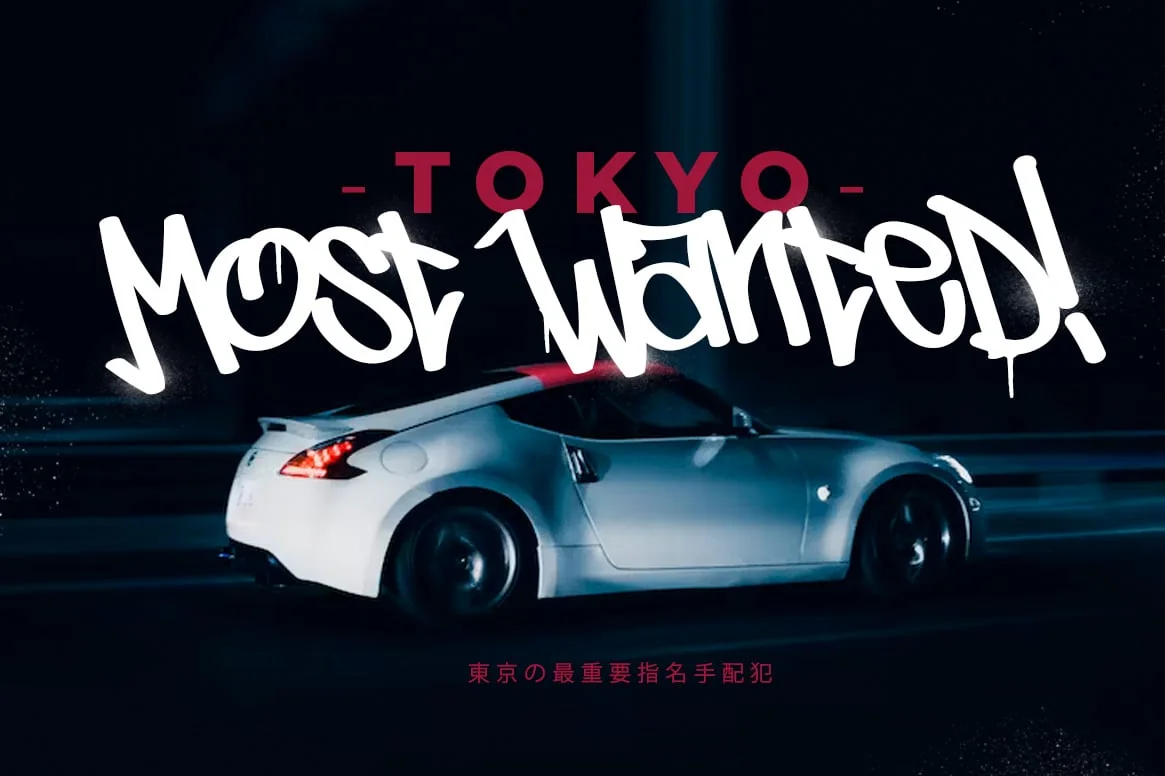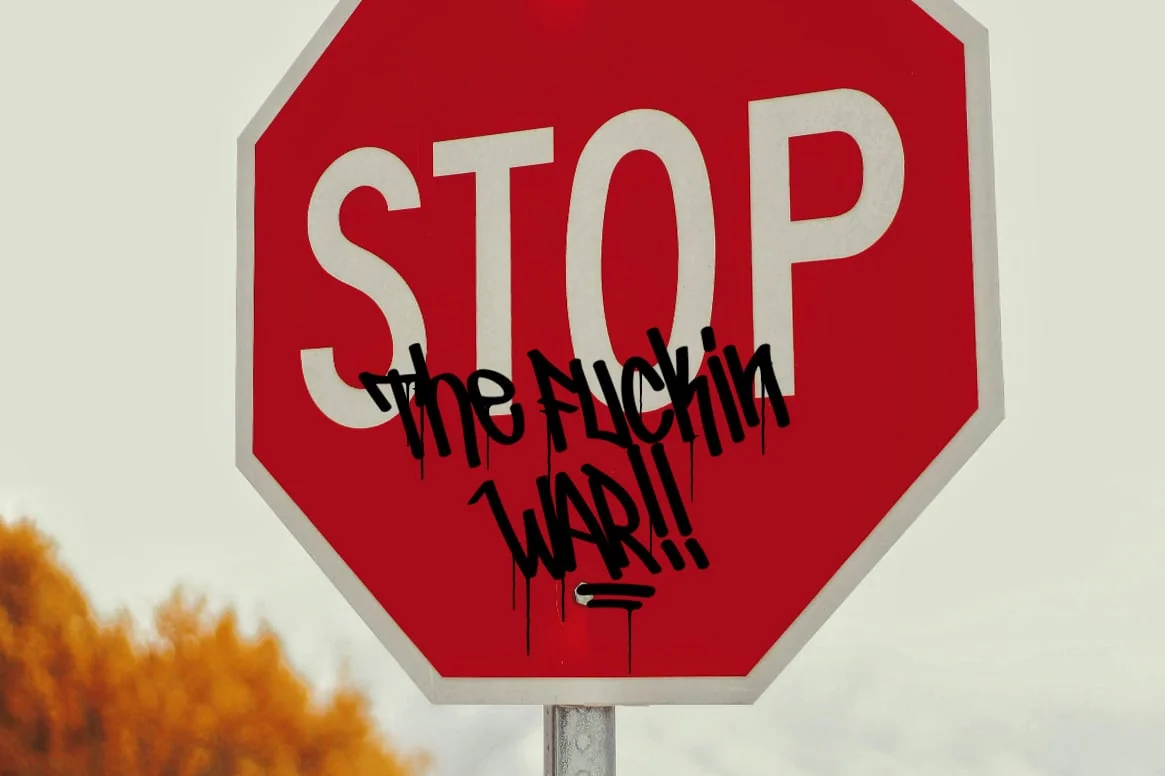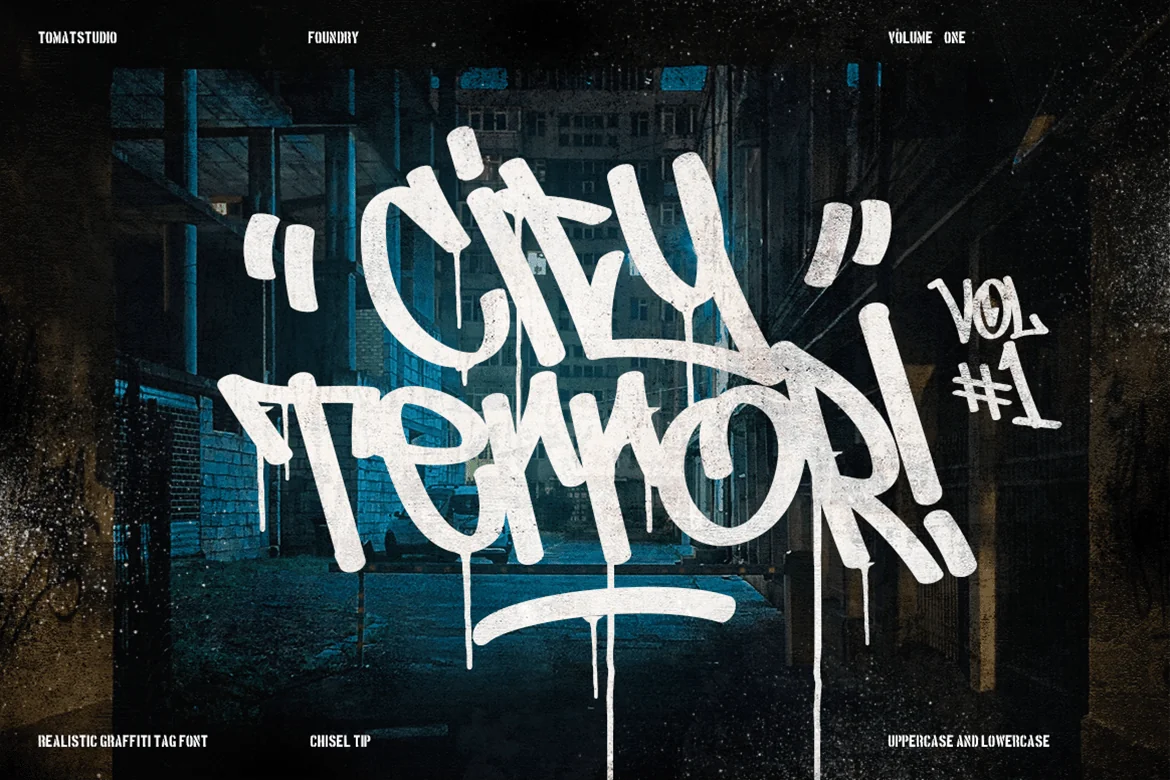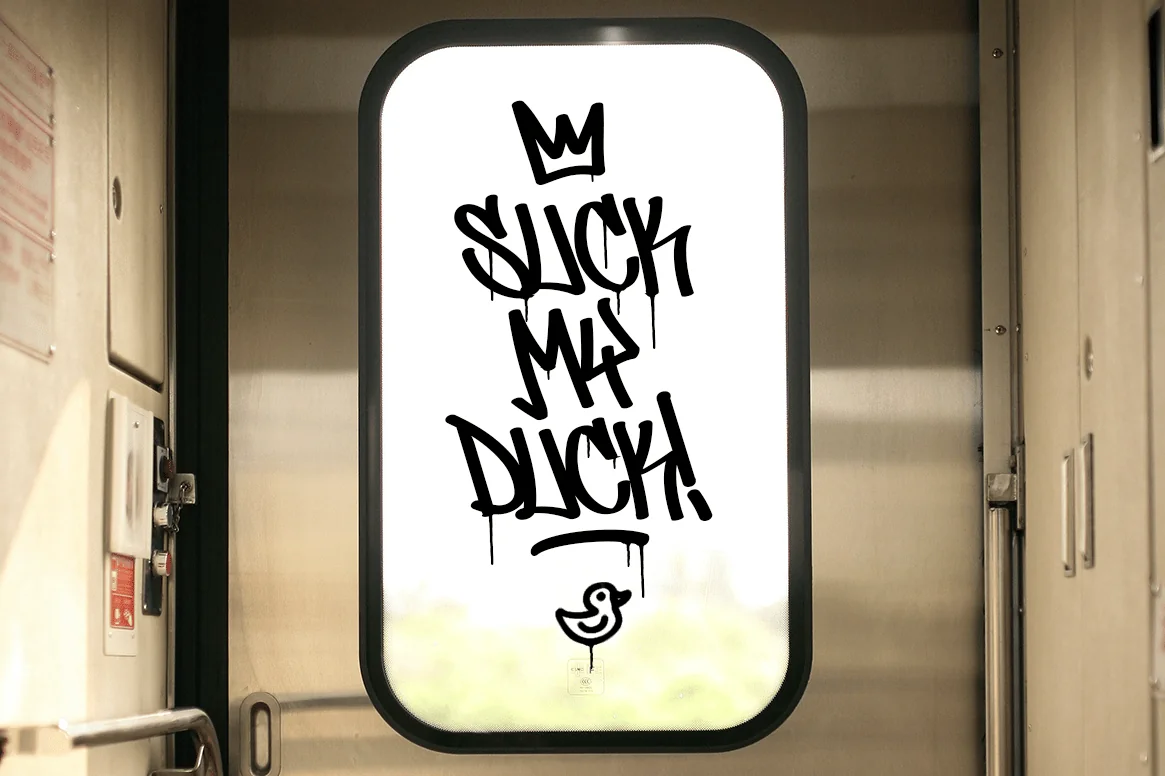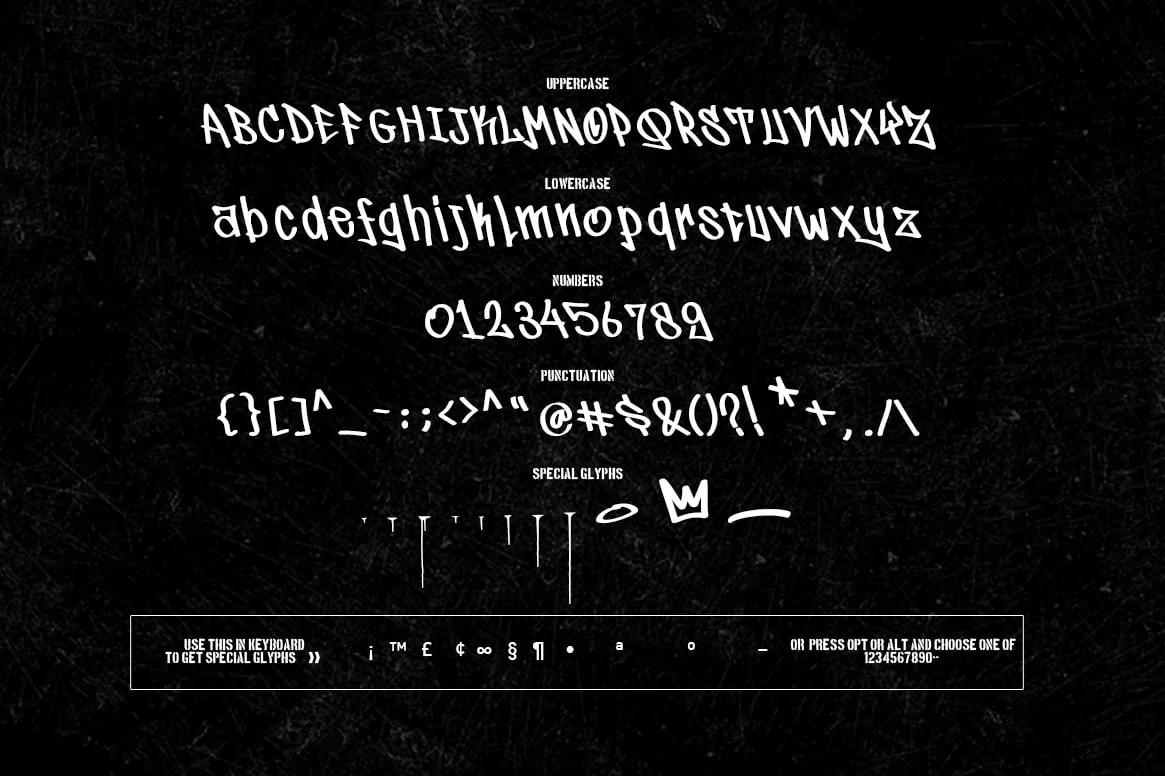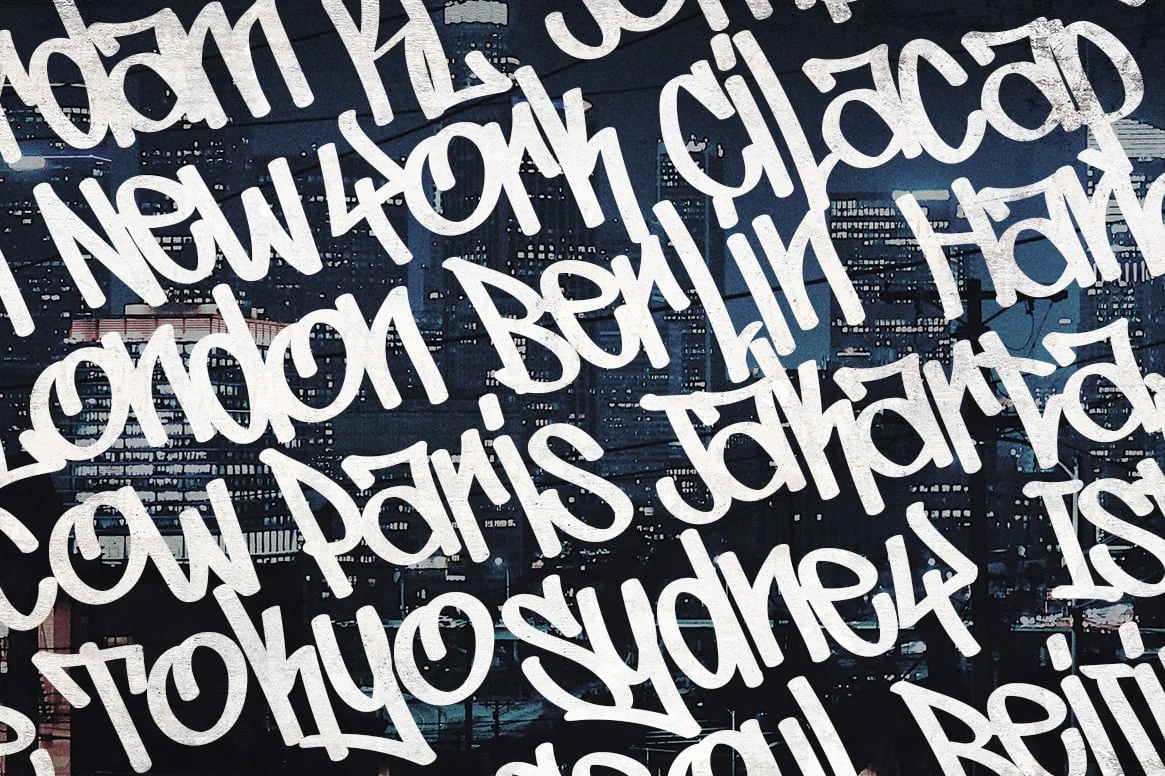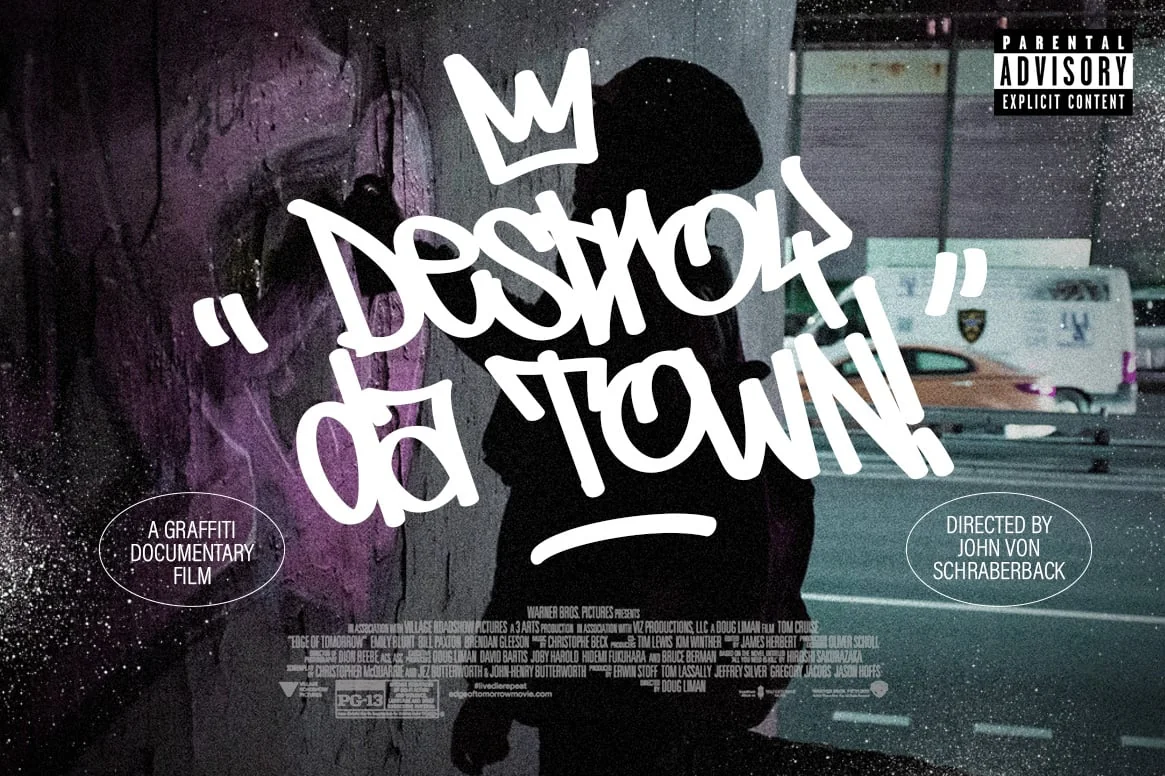
Finally we create another realistic graffiti tag fonts, the different is this font is more polite than my other fonts. Uppercase and lowercase is available on this fonts, so you can use this more properly. Created mwith manual handrawn with Wacom make it realistic, this is how the real tagging graffiti come into fontype! because this is pure from my real graffiti eperiences around the streets.
You know in the real graffiti scene, the spacing between glyphs is tight. Kerning, spacing i adjust more tight, similar with the real tagging in the streets. If you want the best result and match with your style you can adjust kerning yourself by press alt/opt and press arrow left or right.